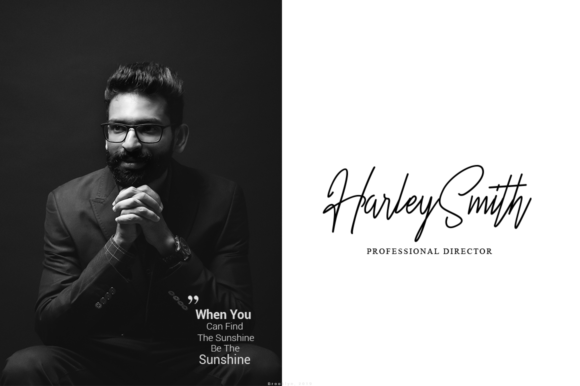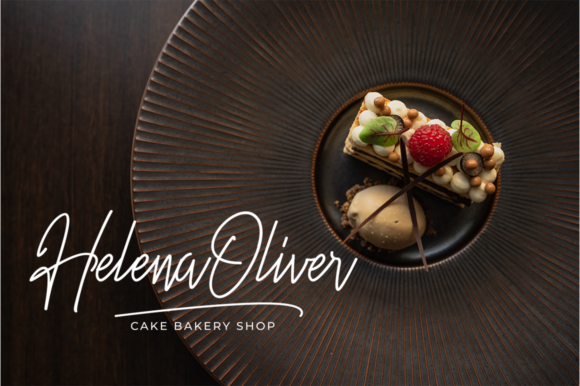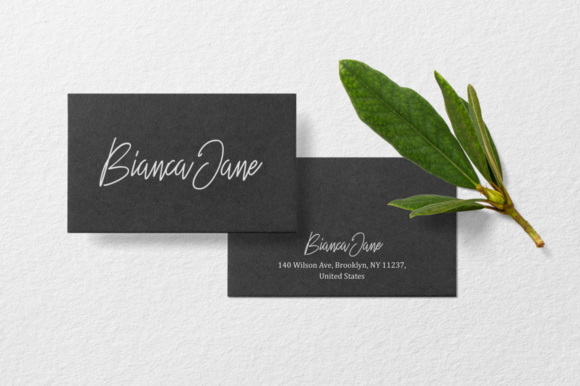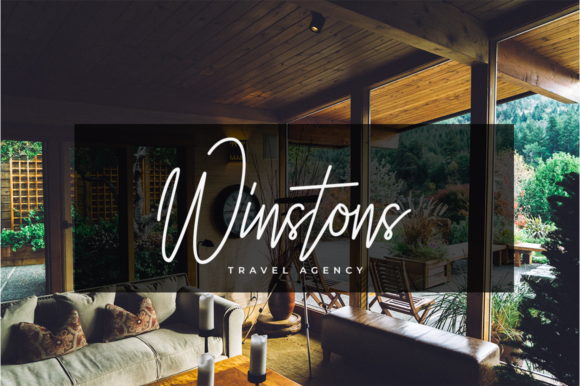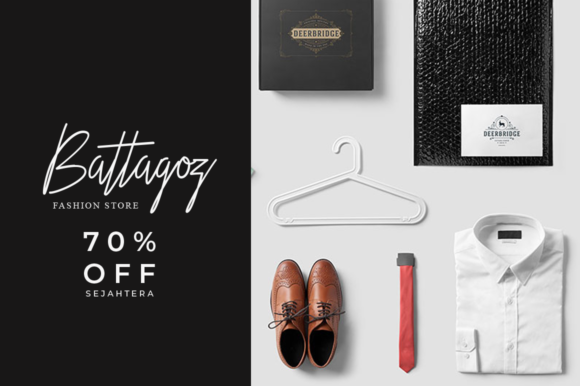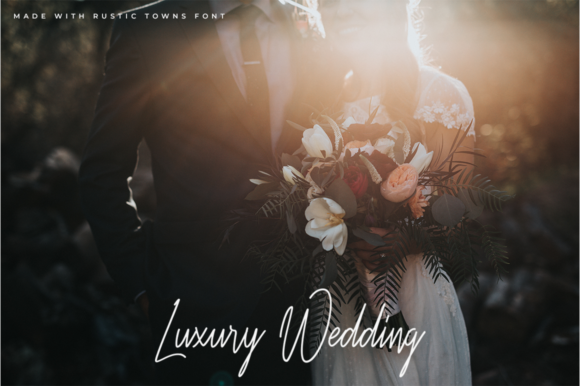
Introduction to Rustic Towns Font
The Rustic Towns is an amazing signature font.
It has a stylish handwritten feel which can be used for logos, branding, invitations, wedding designs, labels, and much more .
Key Features of Rustic Towns Font
Why Choose Rustic Towns Font?
Rustic Towns Font offers exceptional quality and versatility, making it a valuable addition to your design toolkit. Whether you’re creating for personal projects or commercial use, Rustic Towns Font delivers professional results.